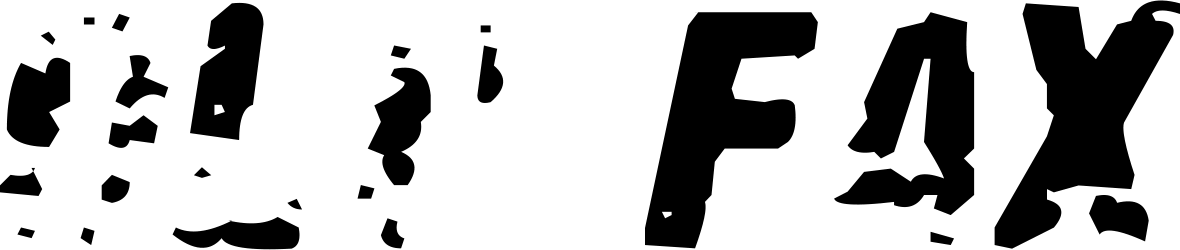
Old Fax Font
Trolling for a super cool, funky font?! You will be surprised with what you’re about to get your hands on! Old Fax is an insane destroy font that is out of this world. The bold clumpy characters are faded and deformed, they also give your typography a dirty, rough feel.
Old Fax included capitalized alphabets, numbers, and some punctuations that are fanatic. You can utilize this remarkable font practically anywhere you can picture. Movies, games, posters, and clothing are considerable places.